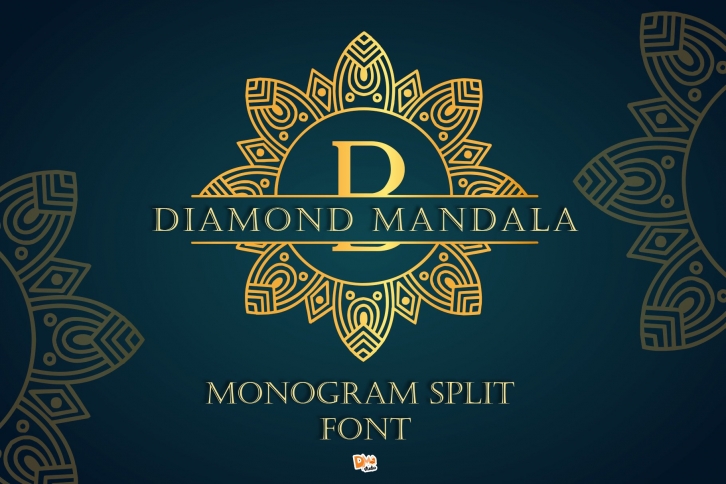
Diamond Mandala Monogram Split Duo is a trendy and unique font with an authentic style. It was designed by DMletterstudio and it's a great choice for creative people who need such a font. It was released on March 25, 2021 and the file size is 17.38 MB. Diamond Mandala Monogram Split Duo will add an organic vibe to any design idea!